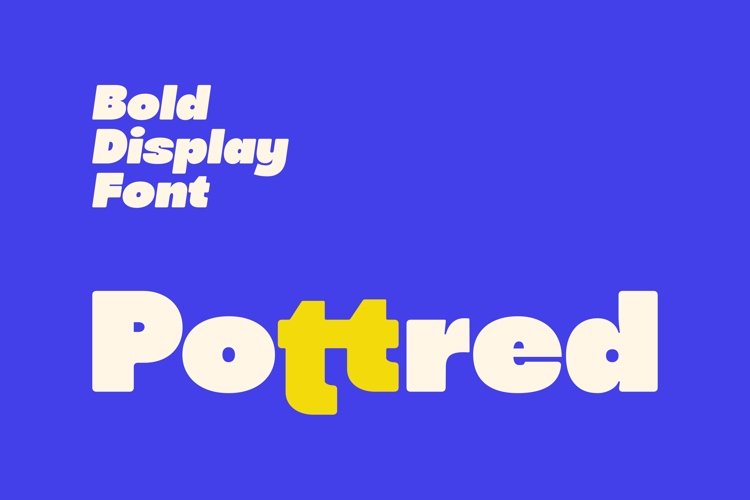
Pottred Font
Meet Pottred, a bold and playful display font crafted to bring energy and personality to your designs.
With its rounded shapes, strong curves, and modern retro vibe, Pottred is perfect for eye-catching headlines, logo designs, posters, branding projects, and packaging